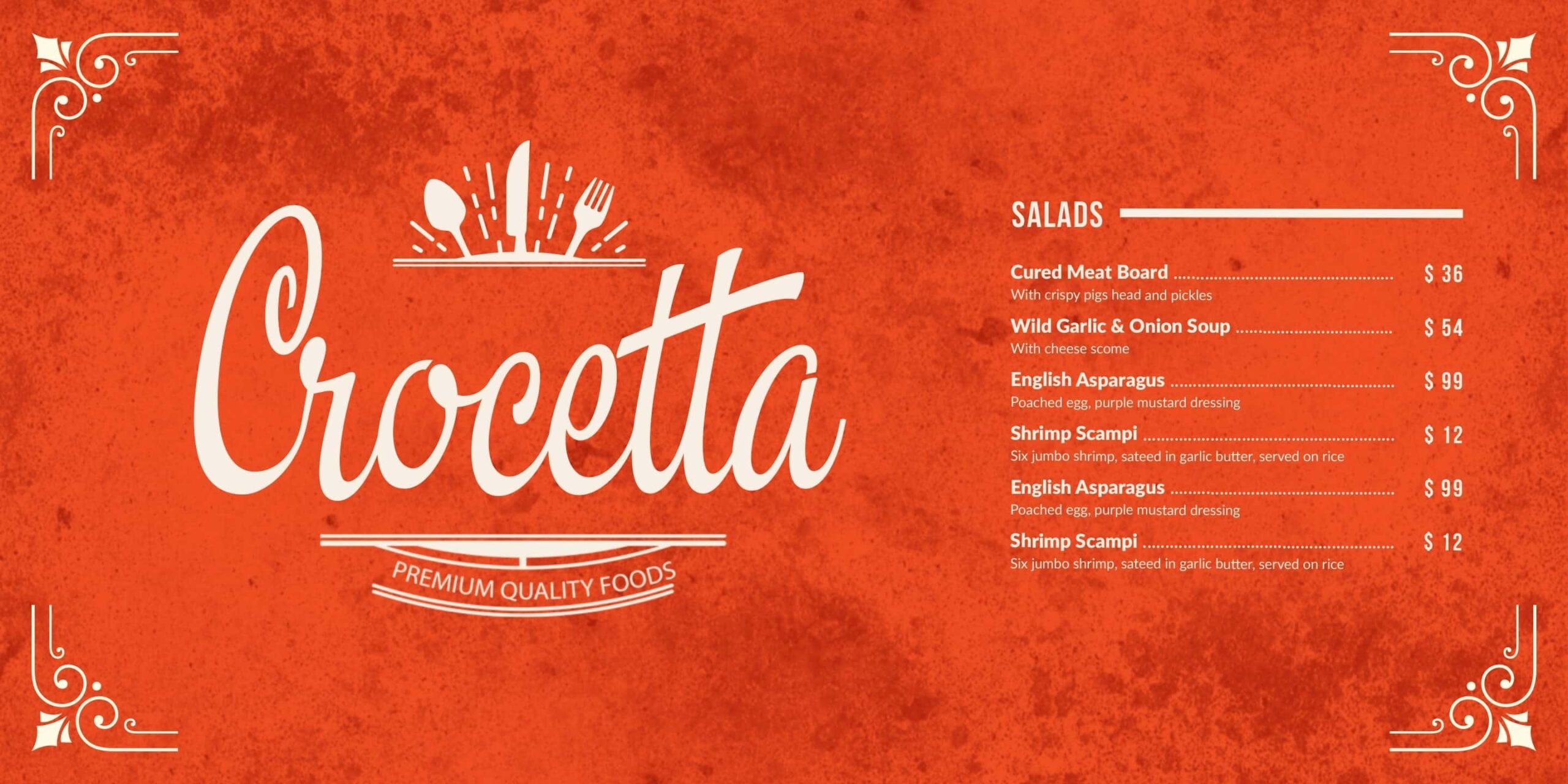
Masteria Calligraphy Font
This is a retro bold script font inspired from 60’s and 70’s script lettering, bringing a smile and a dose of nostalgia to the daily lives. Drawn and created by Mans Greback in 2022, it is perfect for a vintage restaurant headline or nostalgic logotype design. Use underscore _ to make a swash. Example: Mast_eria Use multiple underscores to make a longer swash. Example: Super___human (Download required.) Masteria Script is provided in 14 diverse styles, such as Thin, Bold, Black, Italic, Wide and combinations to compliment each other and maximise your options and design experience. The font is built with advanced OpenType functionality and has a guaranteed top-notch quality, containing stylistic and contextual alternates, ligatures and more features; all to give you full control and customizability. It has extensive lingual support, covering all Latin-based languages, from Northern Europe to South Africa, from America to South-East Asia. It contains all characters and symbols you’ll ever need, including all punctuation and numbers.